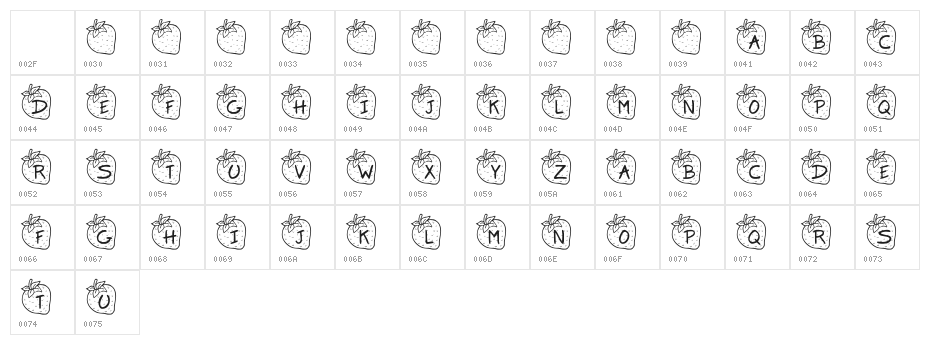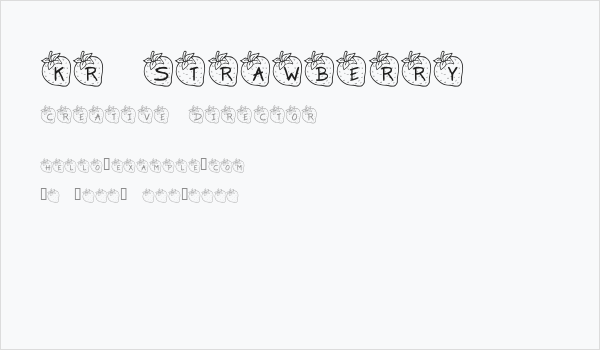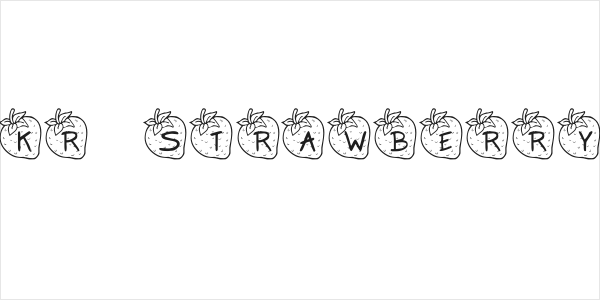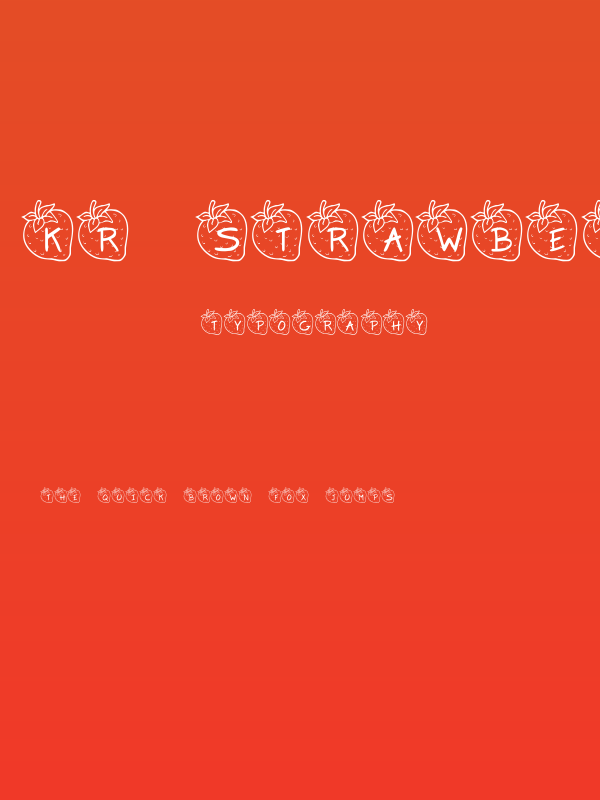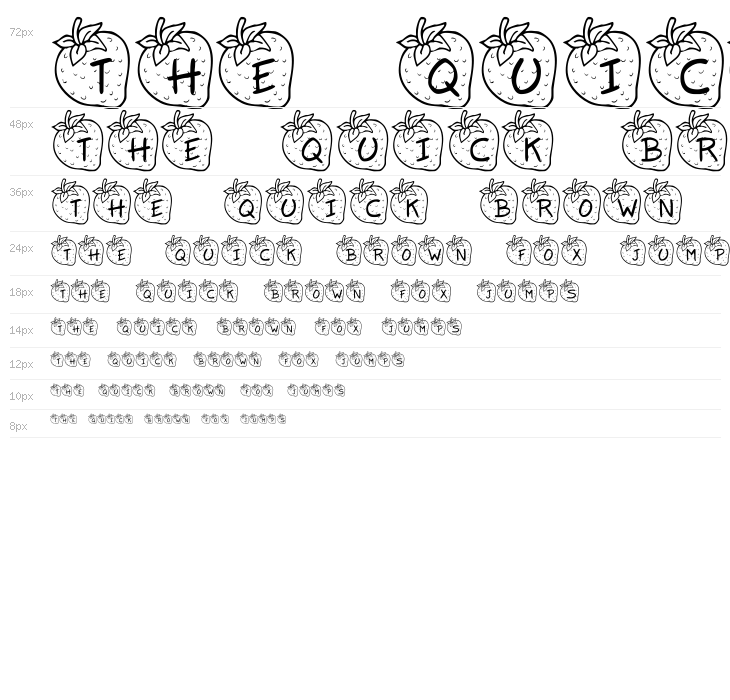
KR Strawberry Font
KR Strawberry Description
This whimsical and playful font features each letter encased within a detailed strawberry illustration. The letters are bold and clear, making them easily legible despite the decorative nature of the design. The strawberries are intricately drawn, with visible seeds and leaves, adding a touch of nature-inspired charm. This font is perfect for projects that require a fun and unique aesthetic, such as children's books, playful branding, or themed event invitations. The combination of the bold letters and the decorative strawberry elements creates a delightful visual impact.
| Overall Style | Whimsical |
| Proposed Projects | Ideal for children's books, playful branding, themed event invitations, and creative posters. |